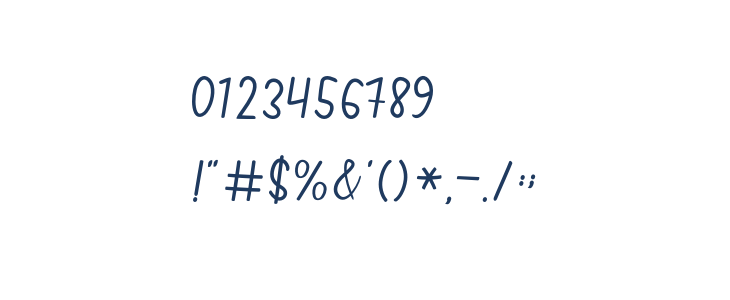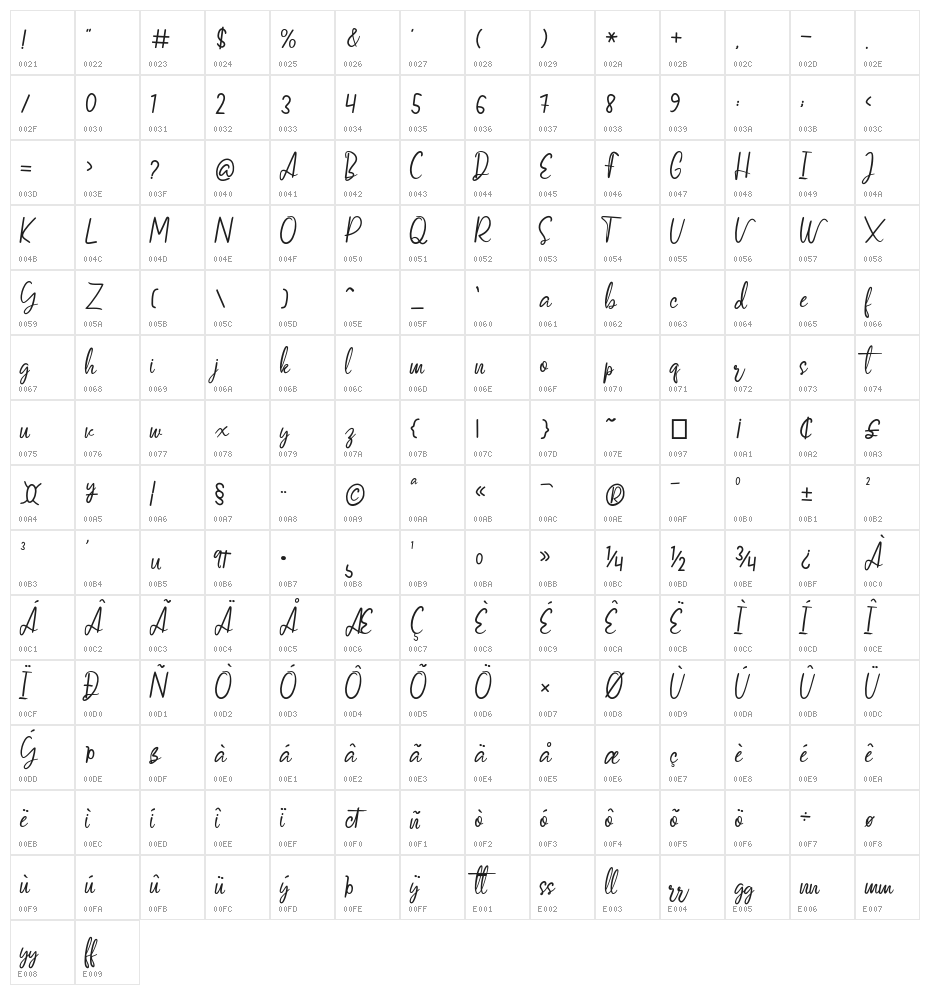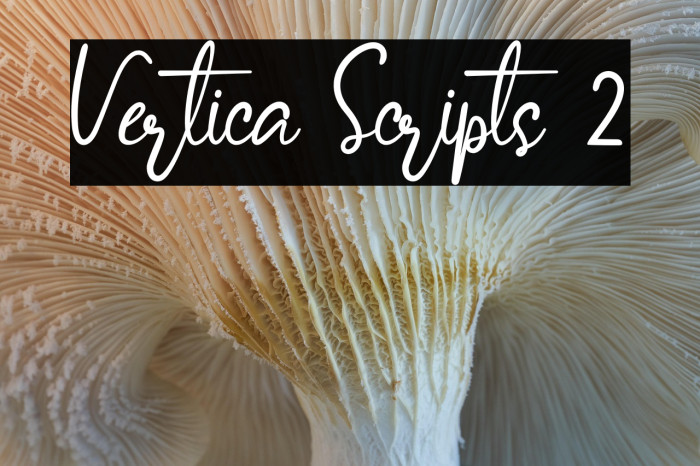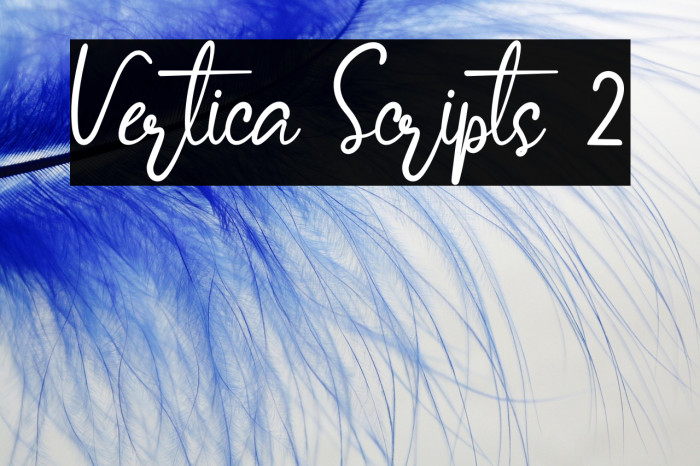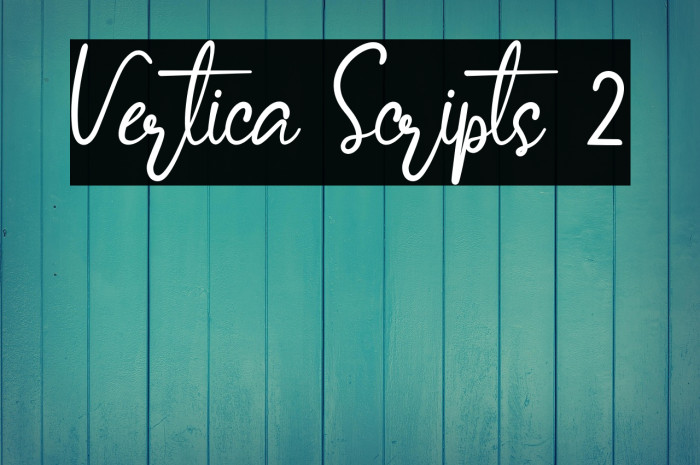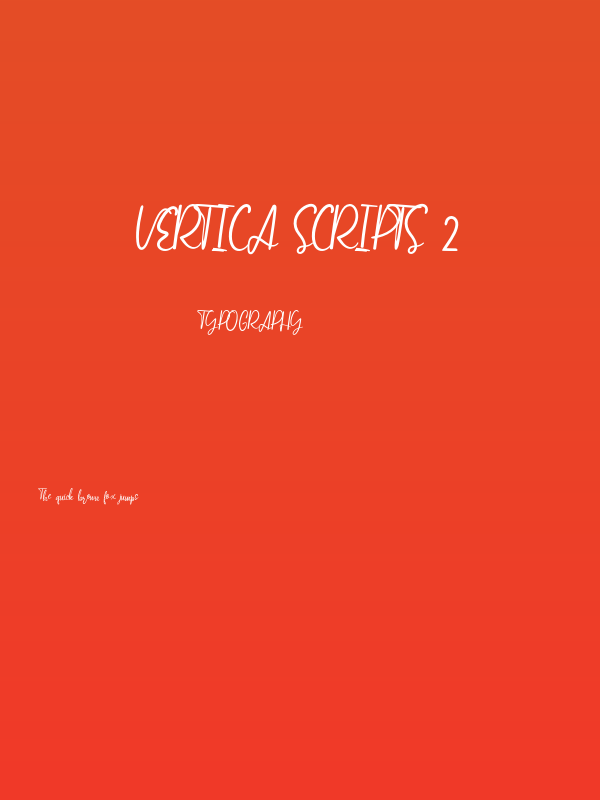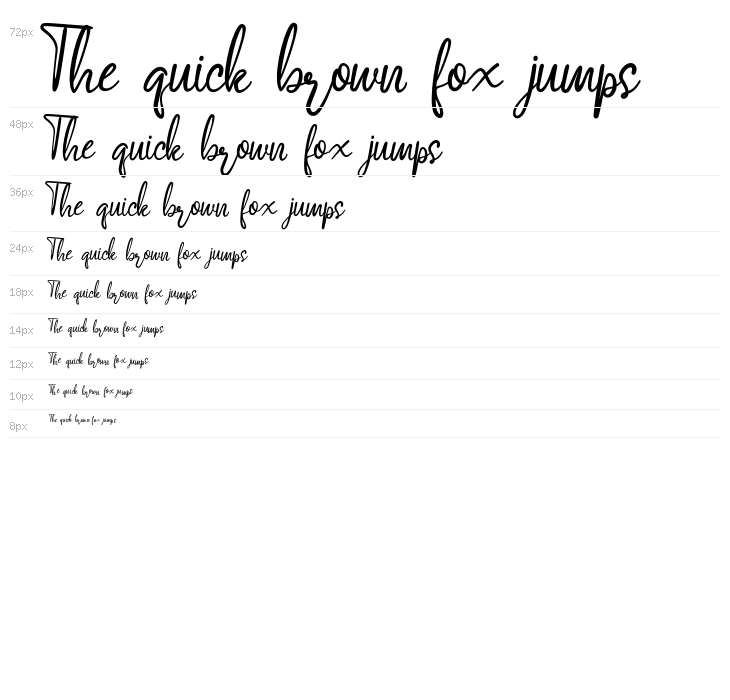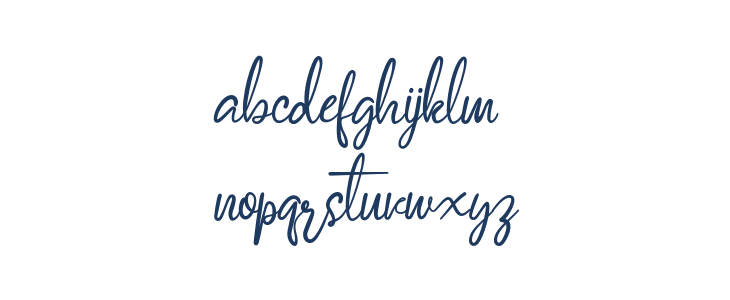
Vertica Scripts 2 Font
Vertica Scripts 2 Description
This font features a dynamic and flowing script style, characterized by its elegant and fluid letterforms. The uppercase letters are bold and expressive, with a slight slant that adds a sense of movement and grace. The lowercase letters maintain a consistent flow, with smooth connections between characters, enhancing the cursive aesthetic. The numerals are clear and legible, maintaining the script's overall style. Special characters are thoughtfully integrated, ensuring versatility in various design contexts. This font's lively and artistic nature makes it suitable for creative and expressive projects.